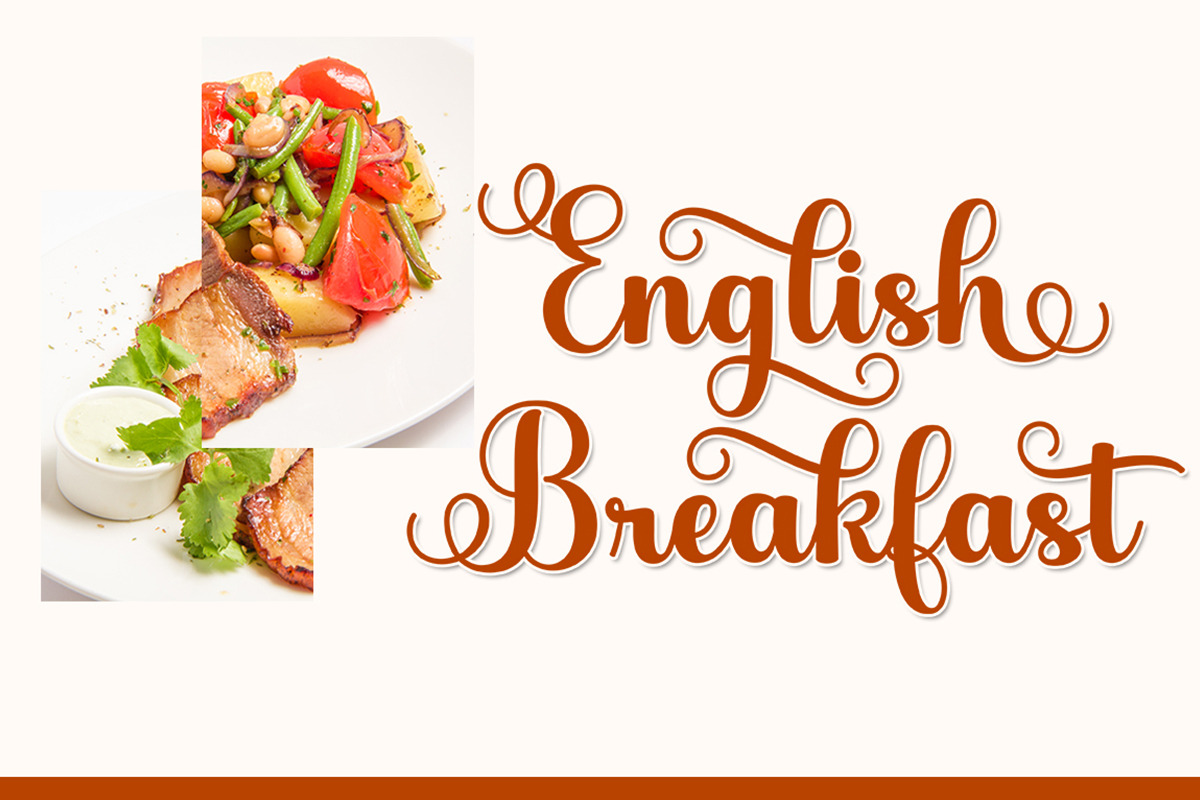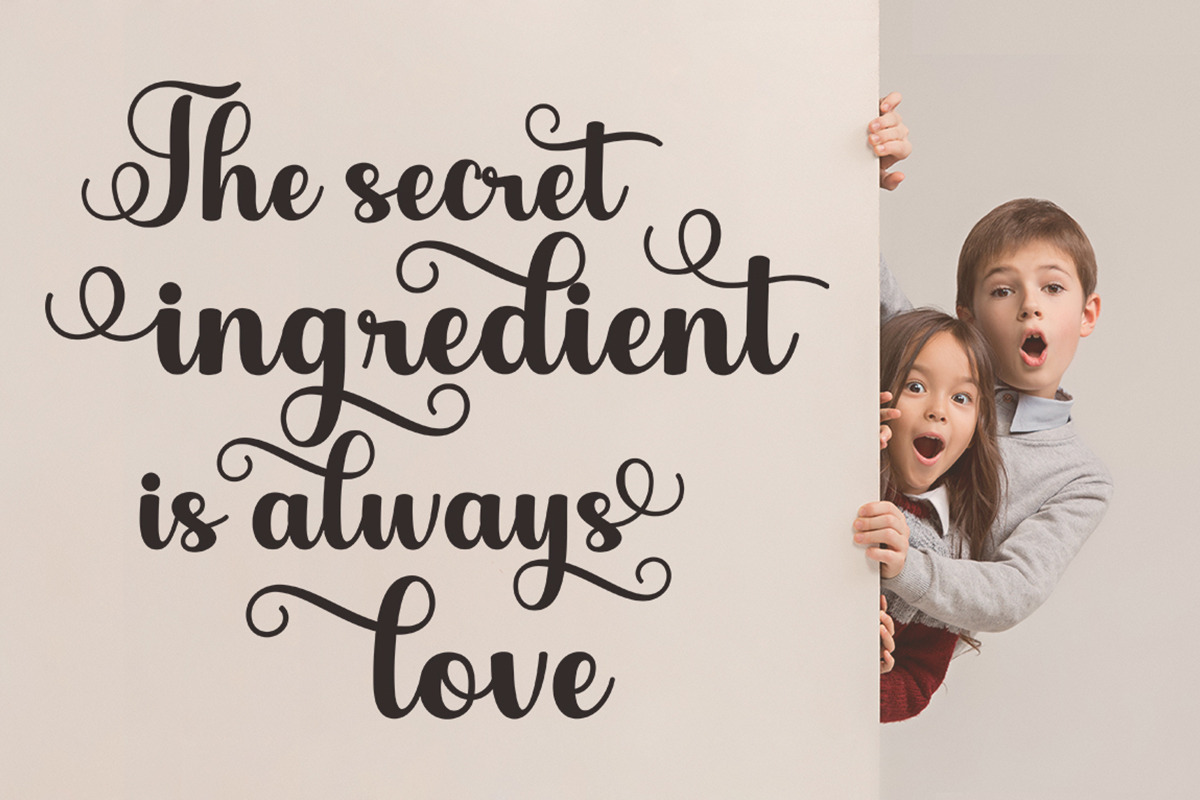
Abiyah Script
Abiyah Script is modern calligraphy design, including Regular and Italic Script. This font is elegant and pretty with swashes. Can used for various purposes. such as logo, product packaging, wedding invitations, branding, headlines, labels, signature, book covers, posters, quotes and more.
Abiyah Script features OpenType stylistic alternates, ligatures and International support for most Western Languages is included. To enable the OpenType Stylistic alternates, you need a program that supports OpenType features such as Adobe Illustrator CS, Adobe Indesign & CorelDraw X6-X7, Microsoft Word 2010 or later versions.